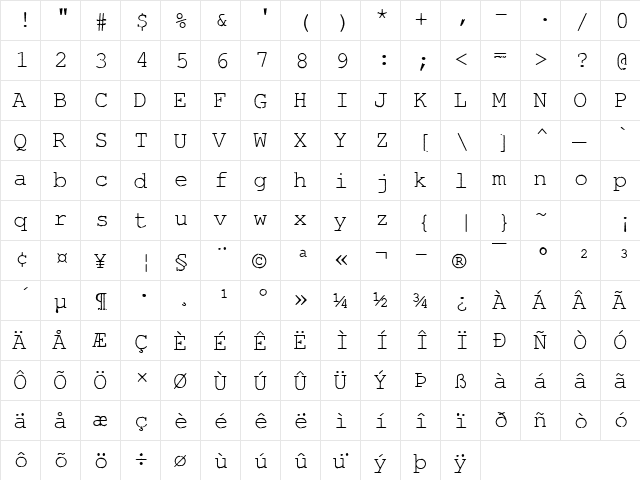
Nimbus Mono AntLReg Regular
Design Context for Nimbus Mono AntLReg Typeface
Nimbus Mono AntLReg brings the precise, column-aligned rhythm of monospaced typography to designs that value technical clarity and systematic order.
Pro Tip: Pair Nimbus Mono AntLReg with a proportional sans for UI contexts where code-style labels and regular body copy need to coexist.